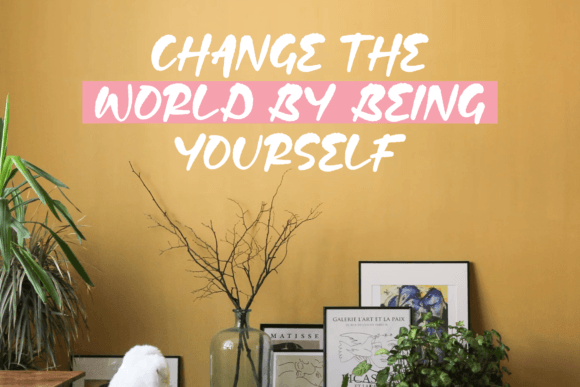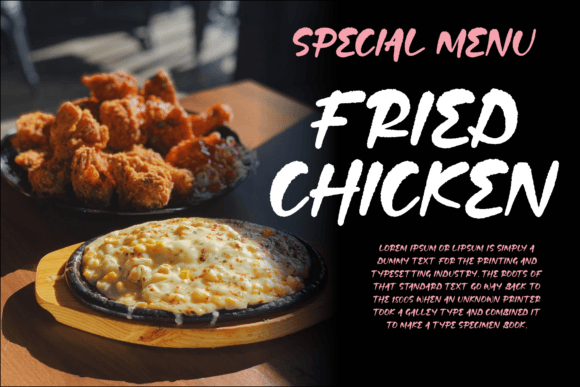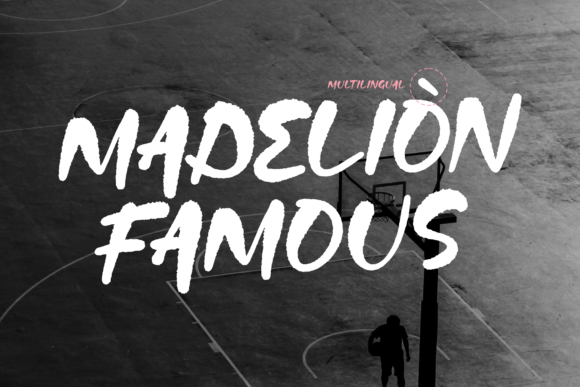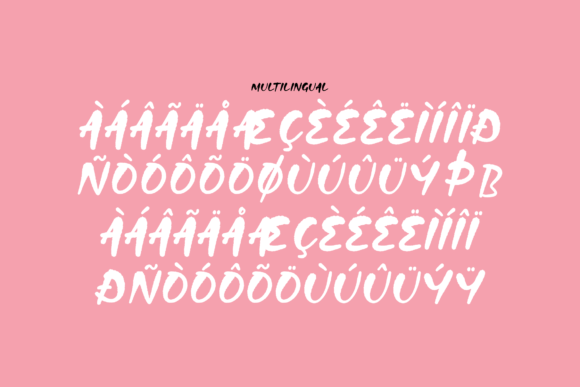
About Madelion Font
“MADELION” is not just a font; it’s a burst of creativity, a cute and quirky handwritten masterpiece that adds an incredibly friendly feel to any project. Whether you’re curating fonts for your Instagram aesthetic or searching for the perfect handwritten script for your DIY projects, “MADELION” transforms every creative idea into a true piece of art.
The charm of “MADELION” lies in its playfulness and uniqueness. The characters dance along the baseline with a whimsical touch, bringing a delightful and friendly energy to the overall design. This font isn’t just a tool; it’s a creative companion that infuses joy and personality into your work.
Imagine using “MADELION” for your Instagram posts. Whether you’re sharing quotes, announcements, or snippets of your daily life, this font adds a touch of whimsy and warmth. Your followers will be drawn to the friendly feel of your captions, making your content more engaging and shareable.
For DIY projects, “MADELION” becomes the perfect choice. Whether you’re designing greeting cards, party invitations, or creating custom labels, this font brings a handmade quality that resonates with authenticity. It’s like having a personal touch in every stroke, making your projects more memorable.
“MADELION” is not just about letters; it’s about creating a visual experience. It’s the font you turn to when you want your designs to tell a story, to convey emotions, and to connect with your audience on a personal level. Each letter is a brushstroke of creativity, adding a playful flair to your visual narratives.
When used in branding or logo design, “MADELION” stands out as a distinctive and memorable choice. It defies the conventional, making your brand appear approachable and full of character. It’s not just a font; it’s a visual representation of your brand’s personality, making a lasting impression on your audience.
In essence, “MADELION” is a versatile font that goes beyond mere letters on a screen. It’s a creative tool that turns ordinary words into extraordinary expressions. It’s the handwritten touch that transforms designs into art, making every project a celebration of uniqueness and friendliness.